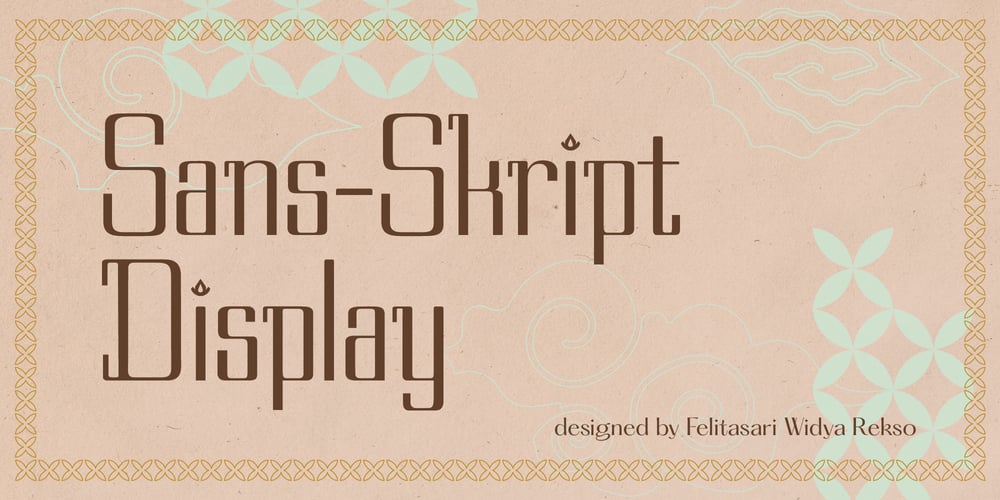
Sans Skript
Sans Skript font
Sans Skript Font Family was designed by Felitasari Rekso and published by Felitasari Rekso. Sans Skript contains 1 styles and family package options. Sans-Skript is a display typeface that is inspired by Javanese Script (or Sanskerta in Bahasa Indonesia). Javanese script is one of Indonesia’s many traditional scripts that were commonly used by Javanese people from mid-15th CE to mid-20th CE. Though not commonly used anymore, it is still taught and used in cities across East and Central Java.Sans-Skript translates the high-contrast, modular and organic features of the Javanese Script into the Latin alphabet. (Hence the not-script naming) The typeface is aimed to be used for large format prints, above 100 pt, and can be used alongside Javanese script. Typefaces that pair nicely mimic features of Javanese script, and Hatton by Pangram Foundry is an example.